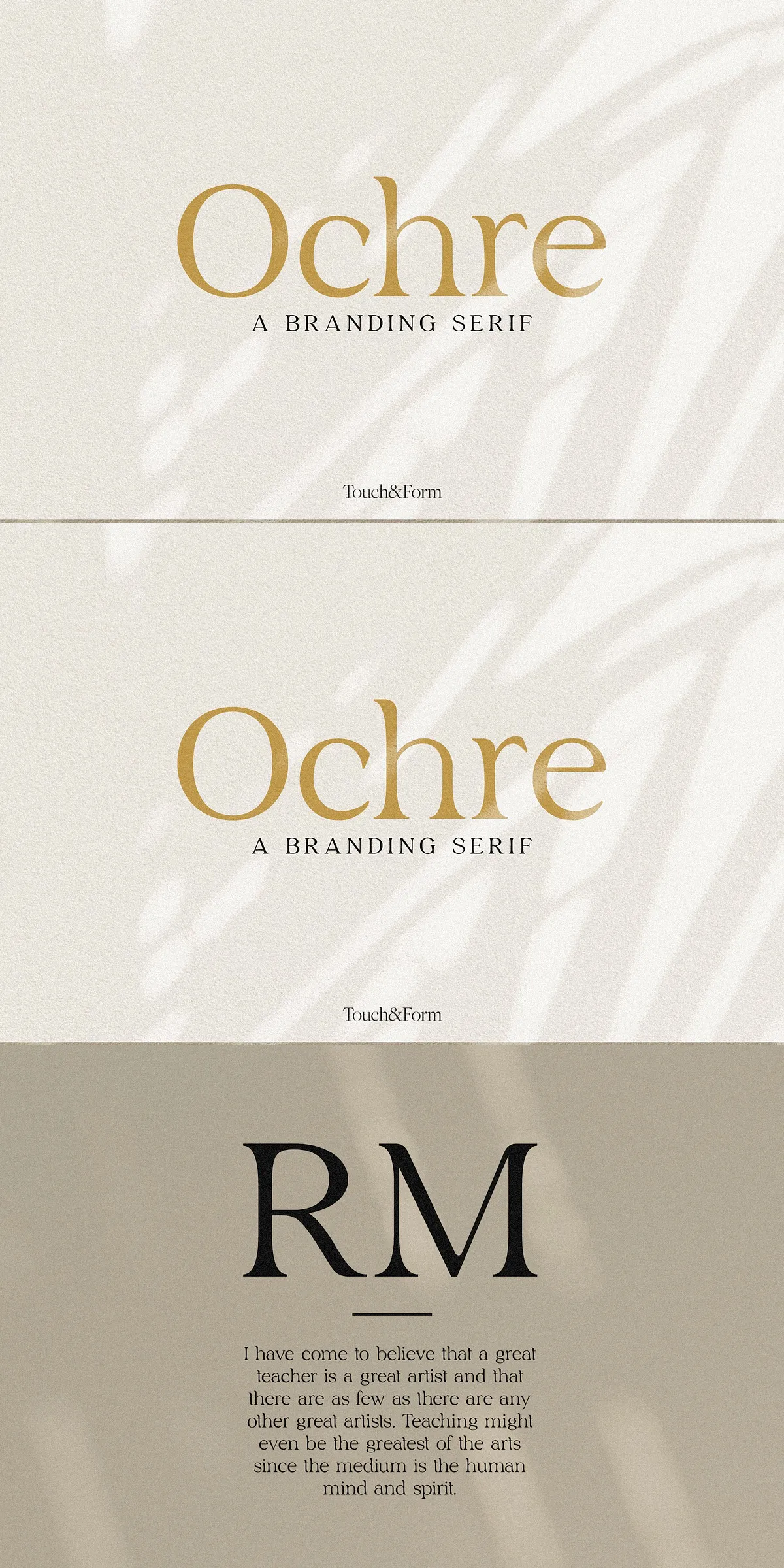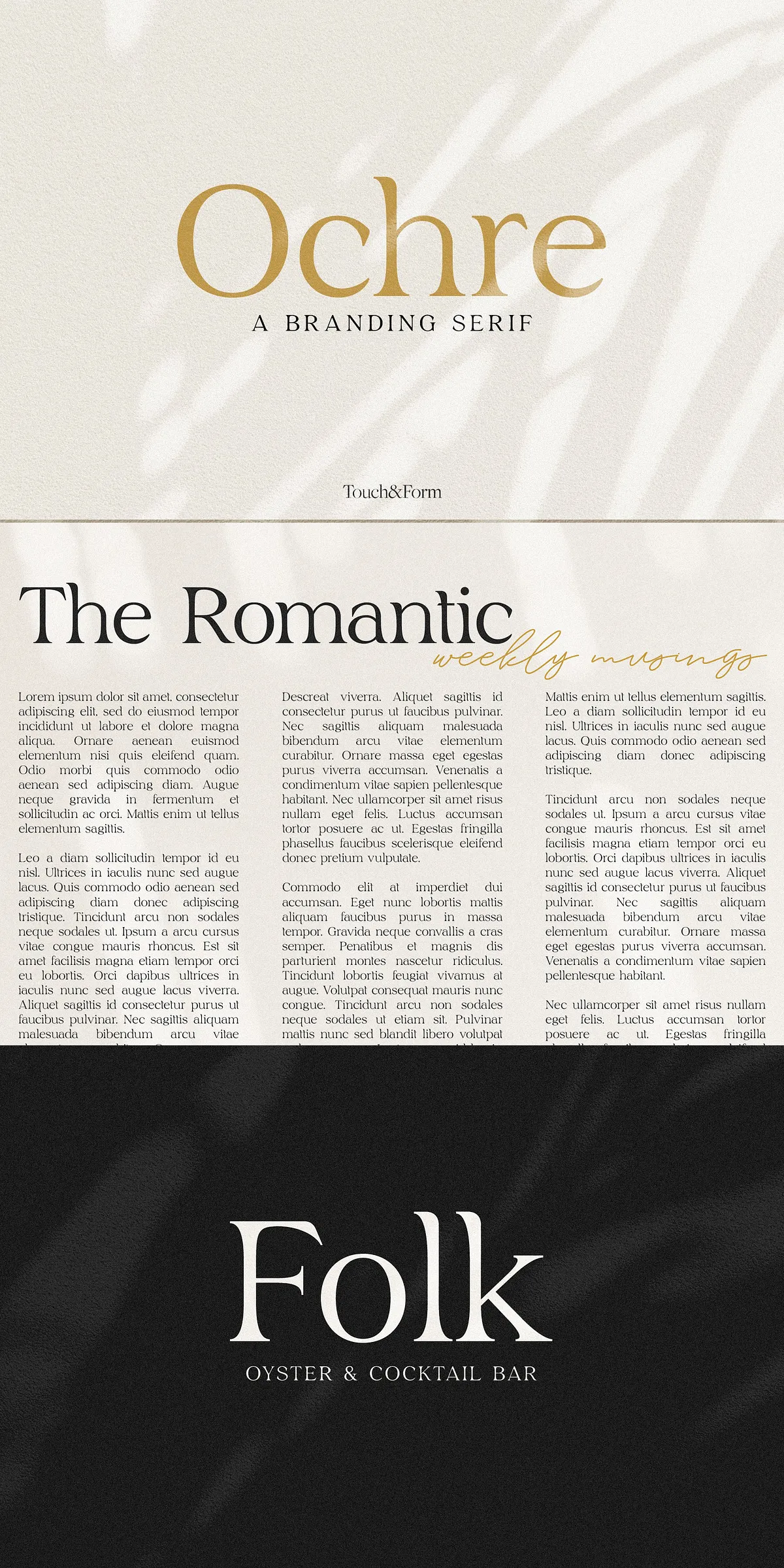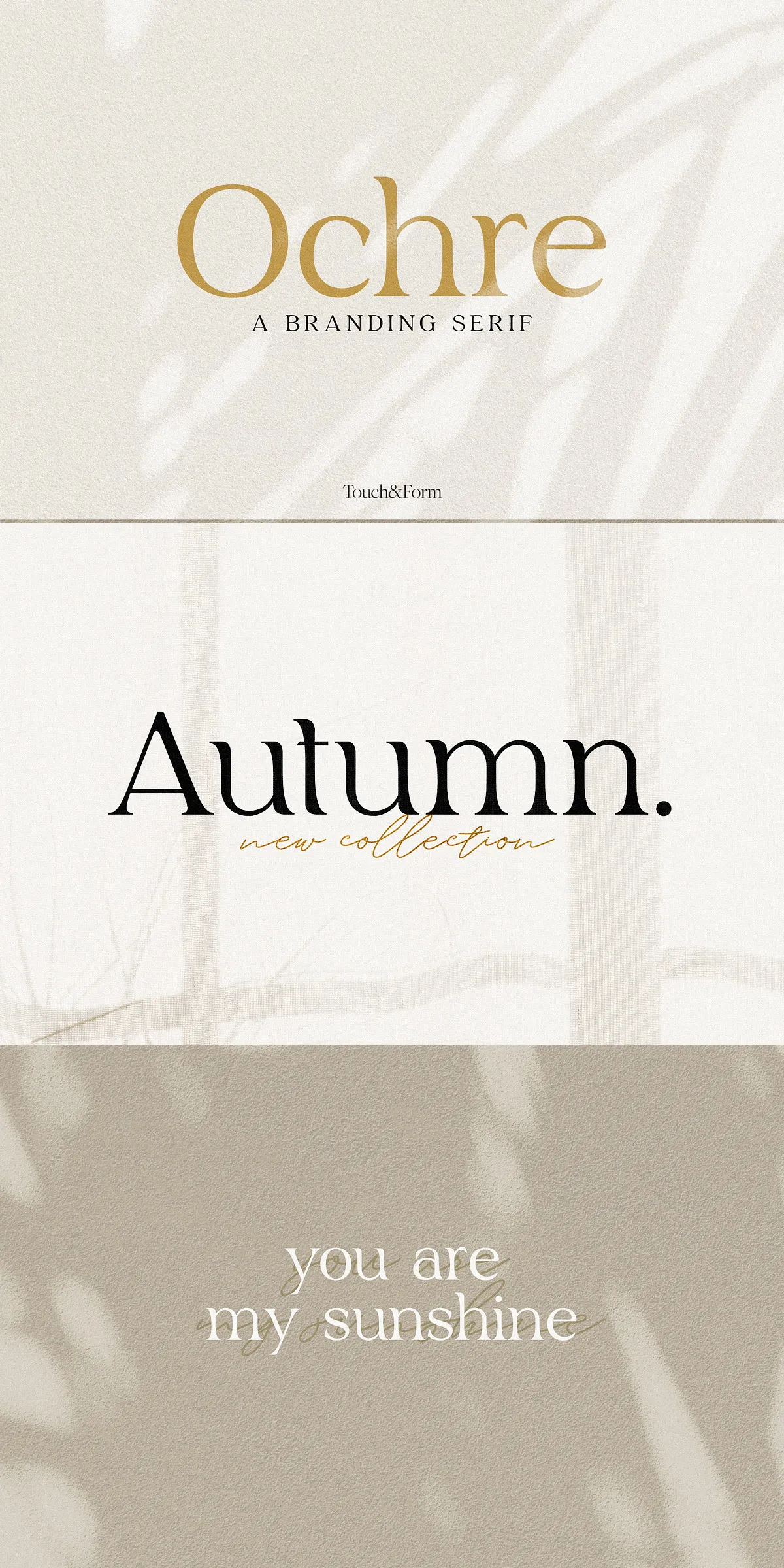
Step into the future with roots in the past. Ochre isn’t just a serif font — it’s a design statement. With its gracefully arched curves, bold yet refined serifs, and balanced proportions, Ochre bridges eras with effortless style. It feels instantly familiar, like a well-worn book or an old postcard, yet it’s engineered for the modern design landscape. Whether you’re crafting a brand identity, designing a website header, or setting body text for a magazine, Ochre delivers sophistication, readability, and visual impact — all in one dynamic typeface.
Why Ochre Is the Ultimate Versatile Typeface for Designers
Some fonts are good for one thing. Ochre is built for everything. From bold headlines to delicate body copy, this font adapts with confidence and flair. Its harmonious contrast between thick and thin strokes ensures strong visual hierarchy, while the refined letterforms remain highly legible at any size. Designed with both digital and print applications in mind, Ochre performs flawlessly across platforms — on screens, in print, and in every creative context.
1. Vintage Aesthetic with Contemporary Precision
Ochre draws inspiration from golden-age typography — the kind found in 1950s posters, classic publishing, and mid-century design. But it’s not a retro imitation. Every curve, serif, and spacing decision has been refined using modern typographic standards. The result? A font that feels nostalgic, warm, and authentic — without sacrificing clarity or consistency. You get the soul of the past, with the precision of the present.
2. Designed for Both Headlines and Body Text
Too many serif fonts work only for titles. Ochre breaks the rule. Its generous x-height, optimal letter spacing, and subtle stroke variation make it ideal for extended reading. Use it for blog posts, product descriptions, or editorial layouts where readability is key. At the same time, its bold, stylized forms command attention in headlines, logos, and marketing materials. One font. Two powerful roles. Zero compromise.
3. Full Character Set — Numbers, Punctuation, and More
Ochre isn’t just about letters. It includes a complete set of characters: standard digits, numerals, punctuation, fractions, currency symbols, and more. Whether you’re setting a price, creating a timeline, or designing a financial layout, Ochre handles it with elegance. The uniform style and consistent stroke weight ensure that numbers and symbols blend seamlessly with the rest of your text.
Perfect Projects for the Ochre Typeface
Ochre thrives in creative projects that demand both personality and professionalism.
Brand Identity & Logo Design
Build a brand that feels both confident and timeless. Ochre’s clean lines and vintage charm make it ideal for luxury goods, boutique labels, coffee shops, book publishers, and lifestyle brands. Use it alone for a minimalist logo, or pair it with a sans-serif for dynamic contrast. Always leaves a lasting impression.
Web & App Design
Make your website feel curated, not generic. Ochre enhances landing pages, portfolios, event sites, and e-commerce product descriptions with a sense of personality and depth. Its web-optimized format ensures crisp rendering on all devices — from mobile to desktop.
Printed Materials
From business cards to coffee table books, Ochre elevates print design. Its high-contrast strokes and detailed serifs create richness in physical form. Works beautifully in both black and colored prints, adding a touch of artisanal quality to any printed piece.
Editorial & Publication Design
Turn articles, magazines, reviews, and newsletters into visually engaging experiences. Use Ochre for article titles, pull quotes, chapter headings, and captions. Its classic structure ensures your content feels authoritative and artistic at the same time.
- ✅ True OpenType features — access ligatures, alternates, stylistic sets, and contextual forms
- ✅ PUA-encoded glyphs — full access to all alternate characters without encoding conflicts
- ✅ Complete character set — uppercase, lowercase, numbers, punctuation, fractions, symbols
Bring Your Vision to Life with Ochre — The Serif That Stands the Test of Time
Ochre isn’t just a font. It’s a design philosophy. It’s the choice of creators who value craftsmanship, authenticity, and enduring beauty. It doesn’t chase trends — it sets them. Whether you’re a freelancer, a creative agency, or a brand building a legacy, Ochre gives you the tools to speak with clarity, style, and soul.
Where tradition meets innovation. Where form meets function. Where every letter feels like it belongs.